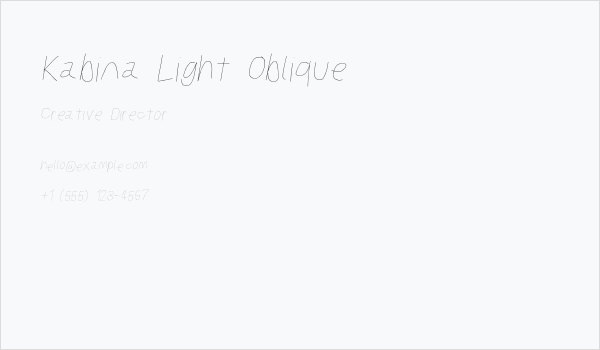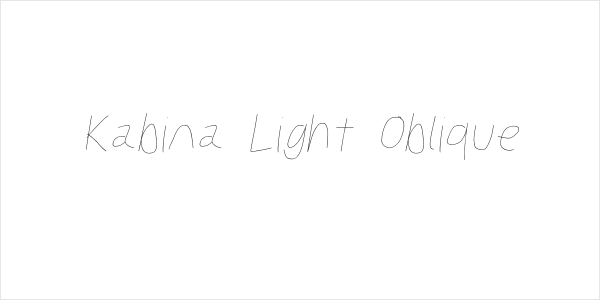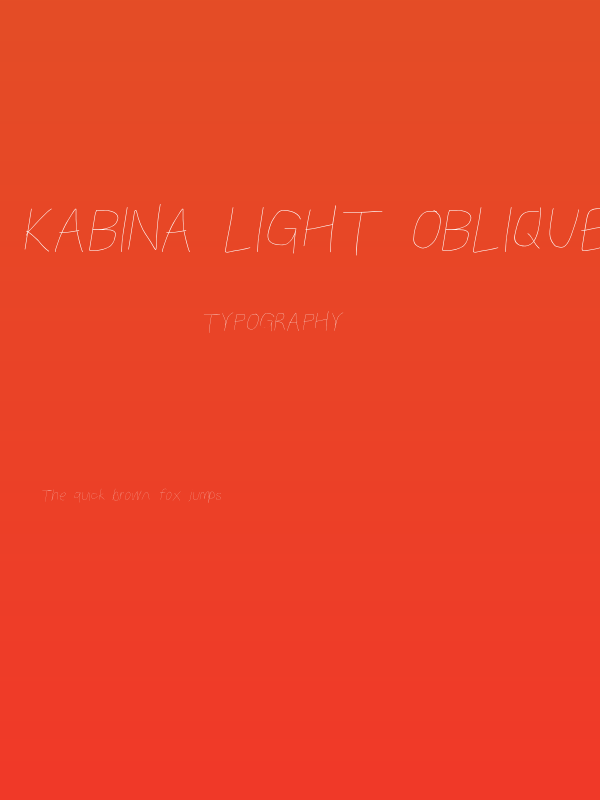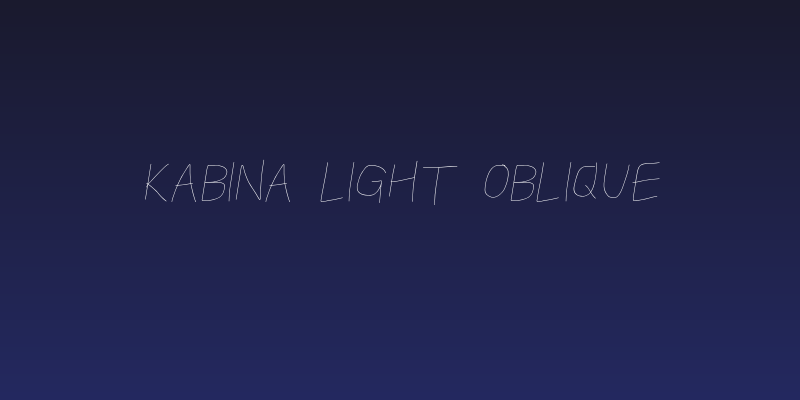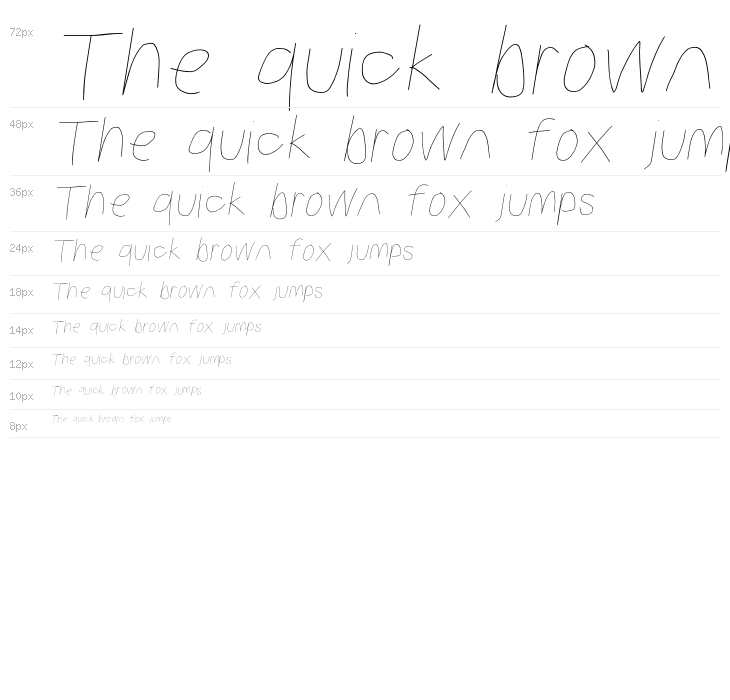
Kabina Light Oblique Font
Kabina Light Oblique Description
This font features a light and airy design with a distinct oblique slant, giving it a sense of movement and elegance. The characters are thin and elongated, providing a modern and sleek appearance. The uppercase and lowercase letters maintain a consistent style, with smooth curves and clean lines. Numbers and special characters follow the same aesthetic, ensuring uniformity across all elements. The overall look is minimalistic yet sophisticated, making it suitable for contemporary design projects.
| Proposed Projects | Ideal for fashion magazines, modern branding, elegant invitations, and minimalist web design. |